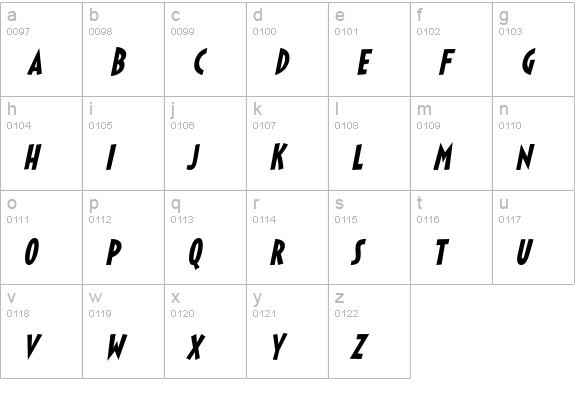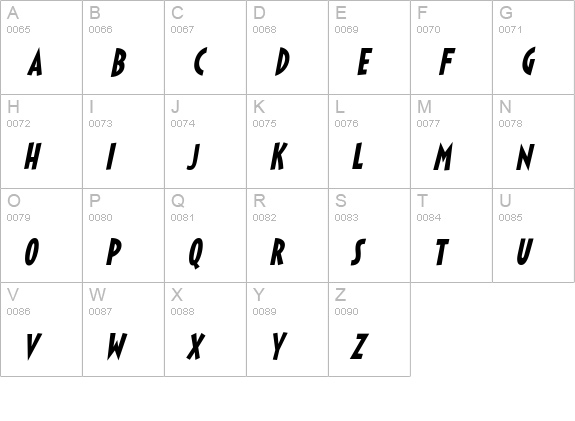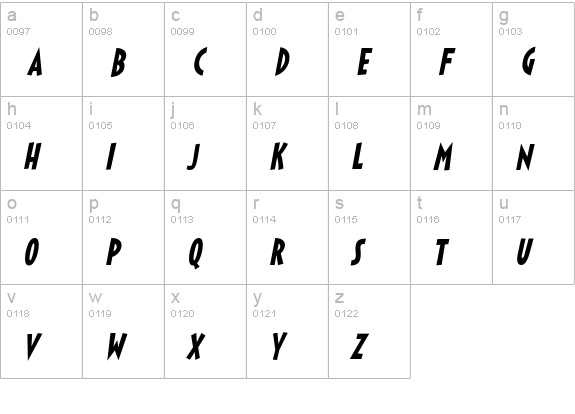
Sticky Moula BTN Oblique Font Details
Sticky Moula BTN Oblique is a distinctive, italic variant in the Sticky typeface family \xE2\x80\x94 well suited to design and typography projects.
Sticky Moula BTN Oblique font is a unique and eye-catching typeface that adds a touch of playfulness to any design. With its slanted and bold lettering, this font is perfect for making a statement and standing out from the crowd. The distinctive style of Sticky Moula BTN Oblique makes it ideal for a wide range of projects, from posters and flyers to logos and branding. What makes Sticky Moula BTN Oblique even better is that it is available for free download at FontsMarket.com. This means that you can easily add this striking font to your collection without having to spend a dime. So why wait? Download Sticky Moula BTN Oblique today and start adding a fun and dynamic element to your designs.